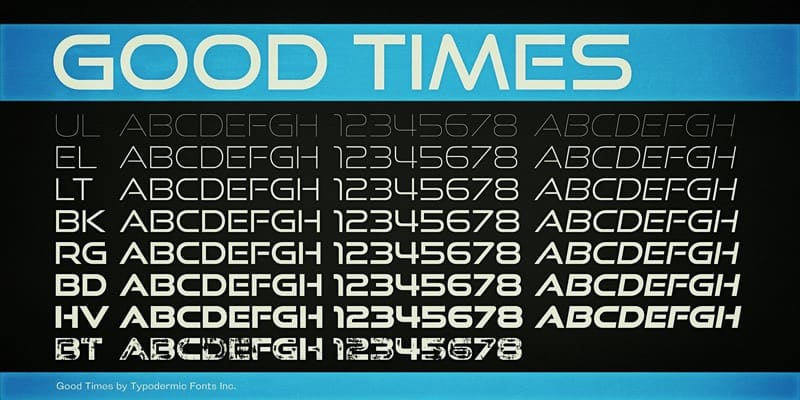
Good Times Sans Serif Font
Good Times gives product and model names the presence of engineered badges. Its wide all-caps geometry reads quickly on vehicles, robot platforms, bicycles, sports equipment, simulator hardware, charging systems, dashboards, exhibition walls, and launch screens without making real technology look fictional.